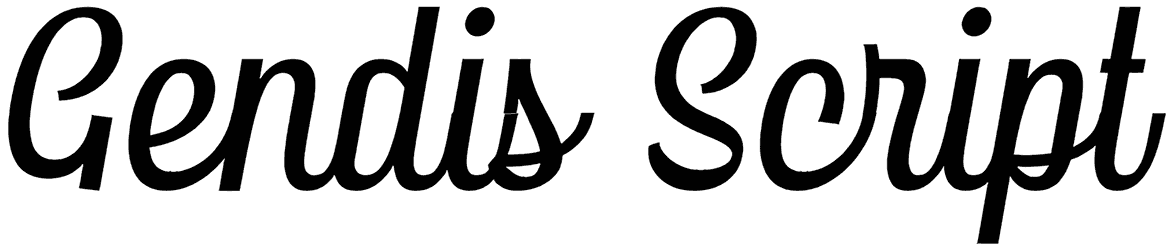
Gendis Script Font
Today, we are gonna offer you a brilliant-looking cursive font that you don’t wanna miss. Gendis Script is one of those fonts that has a special personality and makes your content look happy and distinct from so many ordinary signs, logos, and packaging.
You would be surprised what an opportunity this font is when you see its character collection which contains both the uppercase and lowercase, the numbers, and the punctuation marks.